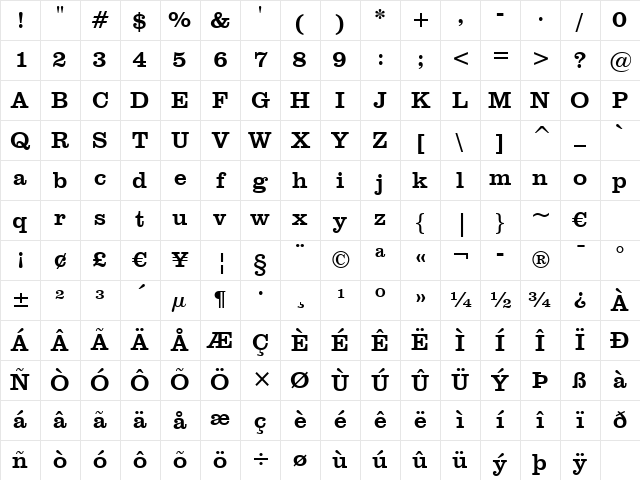
Clarendon BT Roman
Clarendon BT Family
Design Context for Clarendon BT
Clarendon BT features prominent, blocky serifs that give it a confident, grounded presence - equally at home in editorial settings and bold branding work.
Pro Tip: Use Clarendon BT for headlines and subheadings where its slab serifs can make an impression. It also holds up well in mid-size body copy thanks to its sturdy construction.